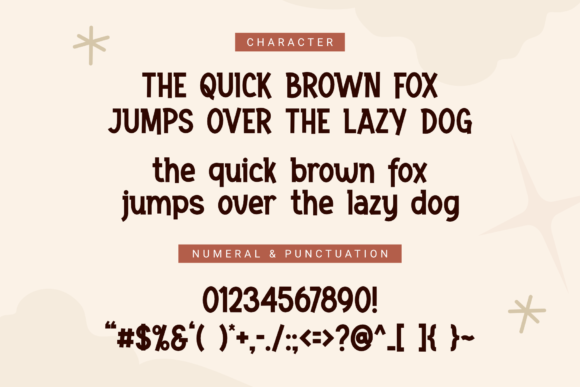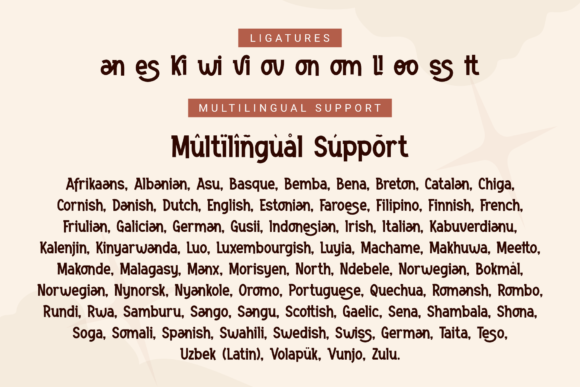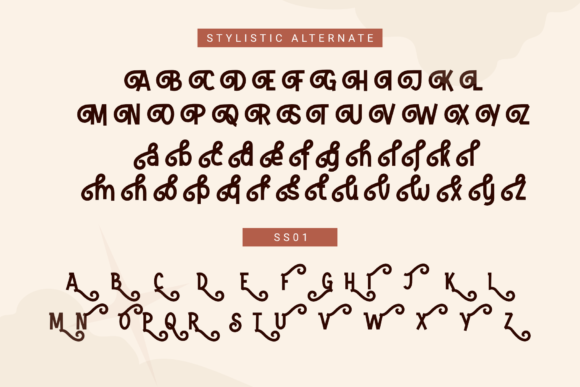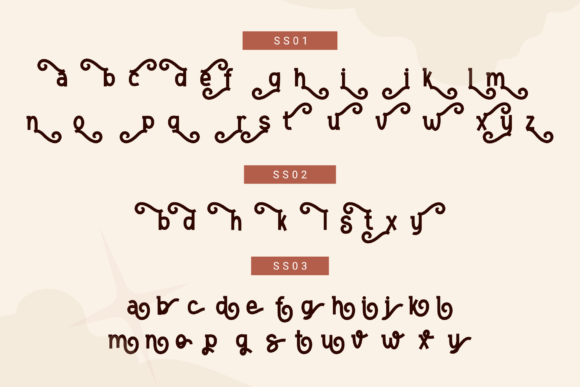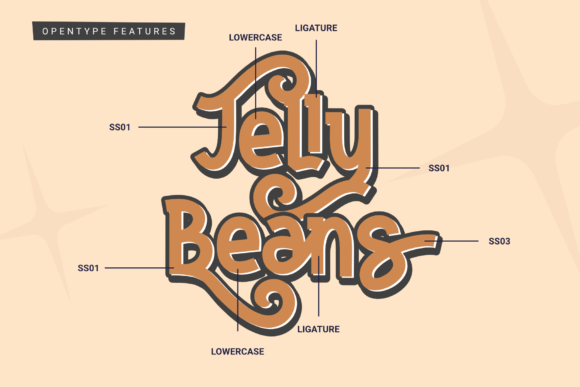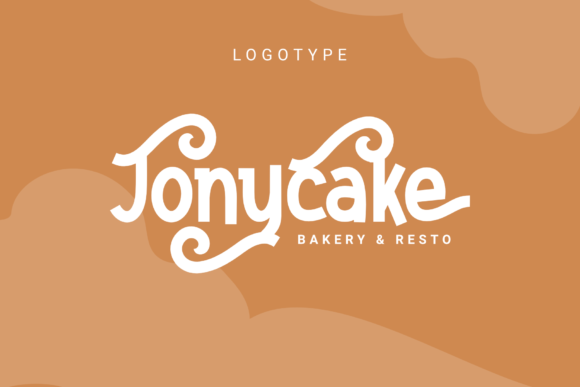
Introducing Bigcake Font: The Playful Display Font for Stunning Designs
Are you a designer or crafter looking for a font that can add a touch of playfulness and whimsy to your creations? Look no further than Bigcake Font! This delightful display font is perfect for making your ideas more realistic and creating spectacular designs that will leave a lasting impression.
What is Bigcake Font?
Bigcake Font is a playful display font designed to add a dash of fun and personality to your designs. Its unique and quirky style makes it perfect for a wide range of projects, from branding and advertising to crafting and DIY tutorials. With Bigcake Font, you can create stunning designs that are sure to capture the attention of your audience.
Key Features of Bigcake Font
So, what makes Bigcake Font so special? Here are just a few of its key features:
- Playful Design: Bigcake Font has a playful and whimsical design that’s perfect for adding a touch of fun to your creations.
- PUA Encoded: This font is PUA (Private Use Area) encoded, which means you can access all of the glyphs and swashes with ease.
- High-Quality Design: This font has been designed with high-quality and clarity in mind, making it perfect for use in a wide range of projects.
- Get Creative: Use Bigcake Font to add a touch of playfulness and whimsy to your design.
- Experiment with Glyphs and Swashes: With Bigcake Font’s PUA encoding, you can easily access all of the glyphs and swashes to add more interest and variety to your design.
Benefits of Using Bigcake Font
So, why should you choose Bigcake Font for your next project? Here are just a few benefits of using this amazing font:
- Adds a Touch of Whimsy: Bigcake Font adds a touch of playfulness and whimsy to your designs, making them more engaging and interesting.
- Perfect for Branding and Advertising: This font is perfect for use in branding and advertising campaigns, where you want to make a bold and memorable statement.
- Great for Crafting and DIY Projects: Bigcake Font is also great for use in crafting and DIY projects, where you want to add a personal touch to your creations.
In conclusion, Bigcake Font is a playful display font that’s perfect for designers and crafters looking to add a touch of whimsy and fun to their creations. With its PUA encoding and high-quality design, this font is easy to use and perfect for a wide range of projects. So why wait? Download Bigcake Font today and start creating spectacular designs that will leave a lasting impression!
Here are a few frequently asked questions about Bigcake Font:
- What is Bigcake Font?
- Bigcake Font is a playful display font designed to add a touch of fun and personality to your designs.